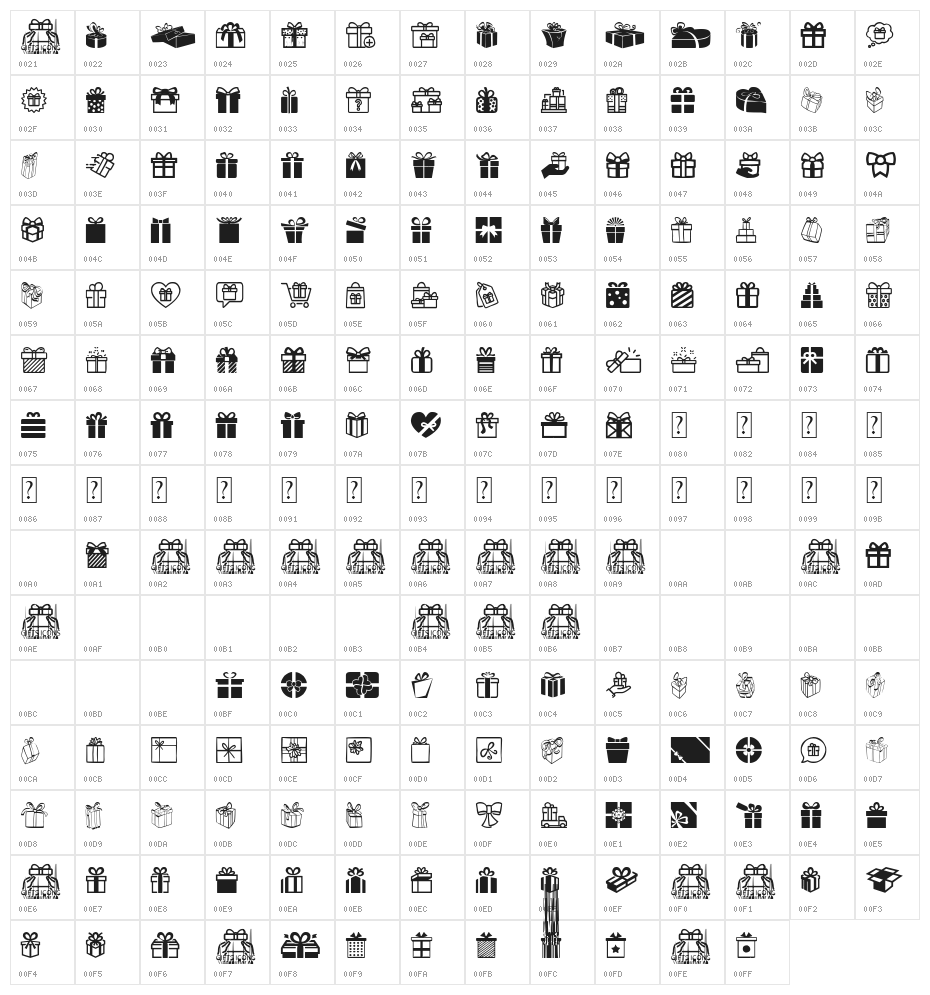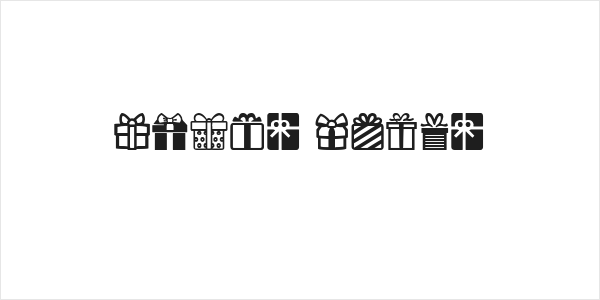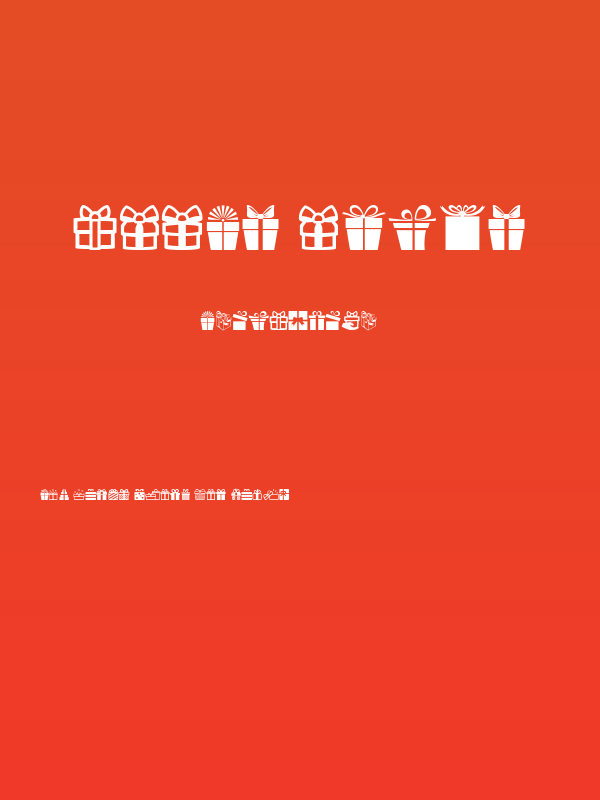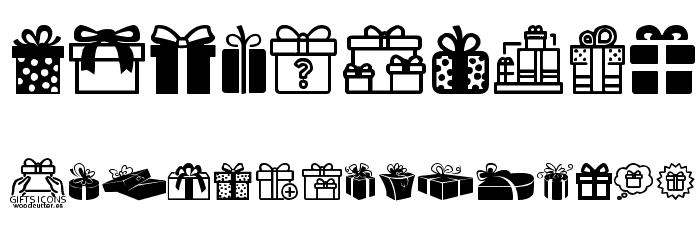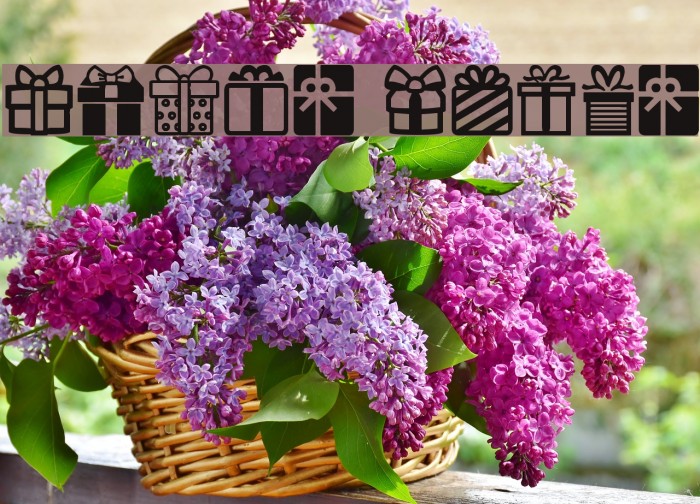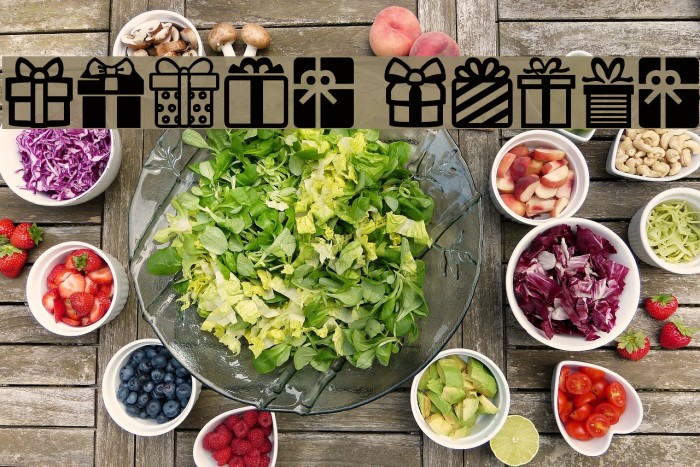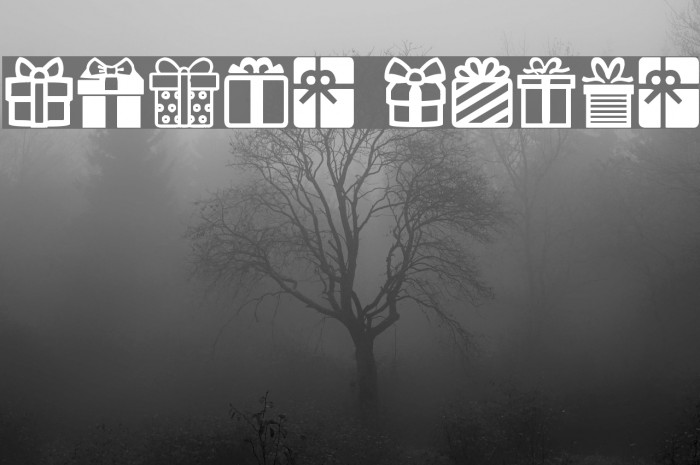
Gifts Icons Font
Gifts Icons Description
A playful collection of gift and present-themed icons, featuring a variety of box shapes, ribbons, bows, and decorative patterns in both filled and outlined styles. The icons are bold, highly legible, and designed for visual impact, with a mix of simple and detailed illustrations.
| Overall Style | Decorative, Playful, Festive |
| Use Case | Icons, Logos, Decorative elements |
| Proposed Projects | Holiday cards, party invitations, e-commerce gift sections, event branding, festive web elements, stickers. |